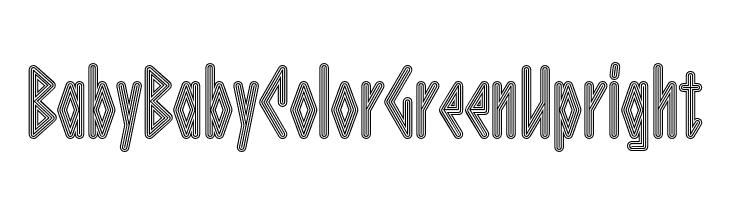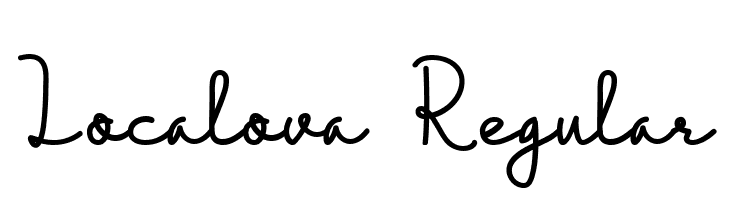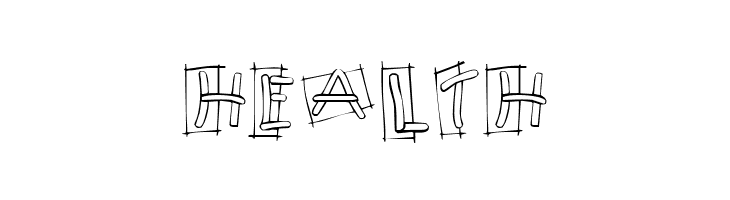
A clean, modern semi-condensed font with semi-bold weight and excellent readability.
A modern, italic font with a gradient line effect, exuding speed and dynamism.
A playful, casual handwritten font with smooth, flowing curves.
Bold, geometric font with a semi-italic slant and strong visual impact.
A bold, expanded, and italicized geometric font with a modern, industrial look.
A bold, italic, futuristic font with sharp angles and geometric structure.
A decorative, geometric font with a three-dimensional line effect.
An elegant, flowing cursive font with ornate uppercase and graceful lowercase letters.
A playful, hand-drawn font with quirky, irregular strokes and dynamic character shapes.